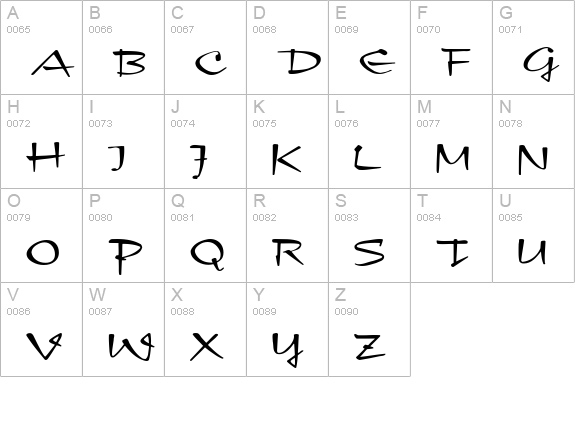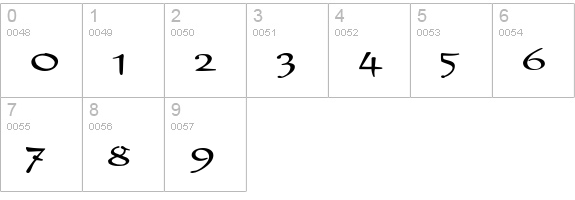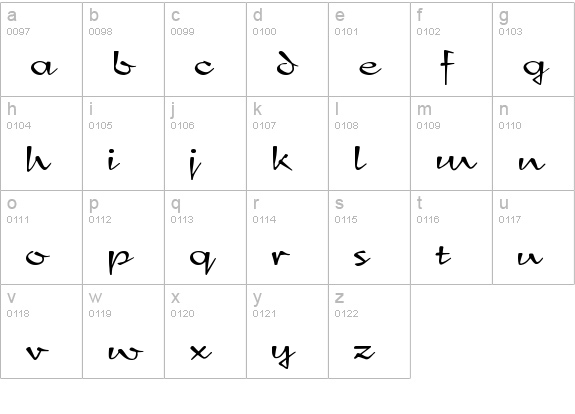
NewDay Script Font Details
Introducing NewDay Script font, a stunning and elegant typeface that exudes sophistication and charm. This script font is perfect for adding a touch of beauty to your projects, whether it be invitations, branding, quotes, or any design that requires a graceful and stylish touch. NewDay Script font features delicate swirls and flowing lines that create a sense of elegance and class. Its smooth and flowing characters make it a versatile choice for a wide range of design projects, making your text stand out and captivate your audience. The best part about NewDay Script font is that it is completely free to download at FontsMarket.com. Yes, you read that right - this exquisite font is available for free, allowing you to elevate your designs without breaking the bank. So don't hesitate to add this gorgeous script font to your collection and bring a touch of sophistication to your creative projects.